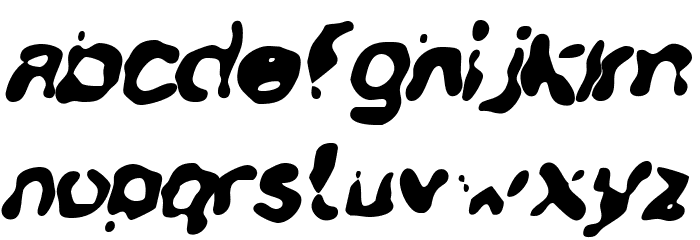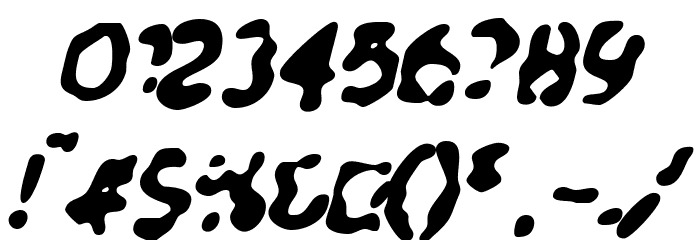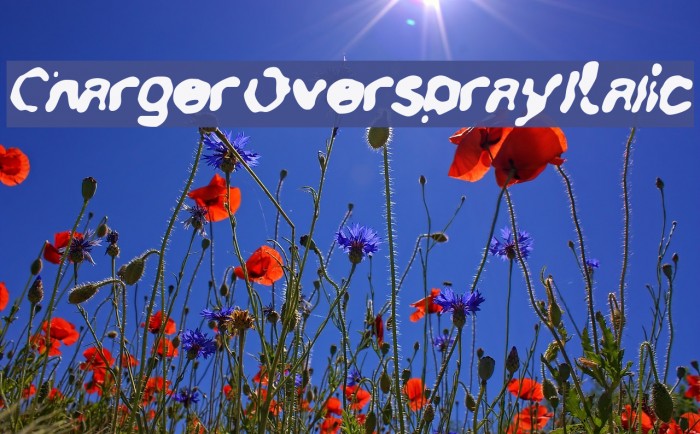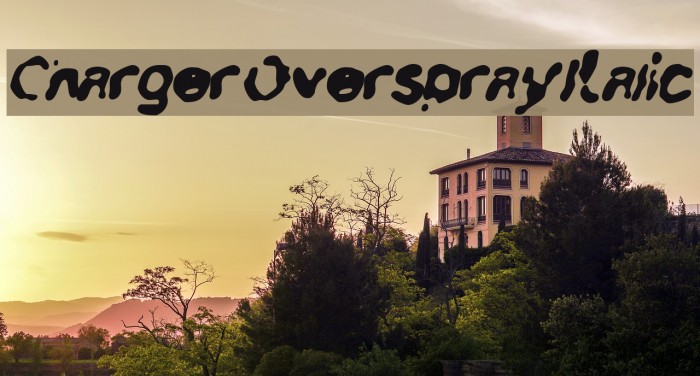
Charger Overspray Italic Font
This font features a bold and dynamic style with an overspray effect that gives it a unique, artistic appearance. The characters are heavily stylized, with irregular edges and a sense of movement, reminiscent of graffiti or street art. The italic slant adds to the sense of motion, making it feel energetic and lively. The font's boldness ensures high visibility, while the irregular shapes create a playful and informal vibe. It's perfect for projects that require a creative and unconventional look, such as posters, album covers, or urban-themed designs.
A bold, italic font with an overspray effect, exuding a dynamic and artistic street art vibe.
- Proposed Projects: Ideal for posters, album covers, urban-themed designs, and creative branding projects.